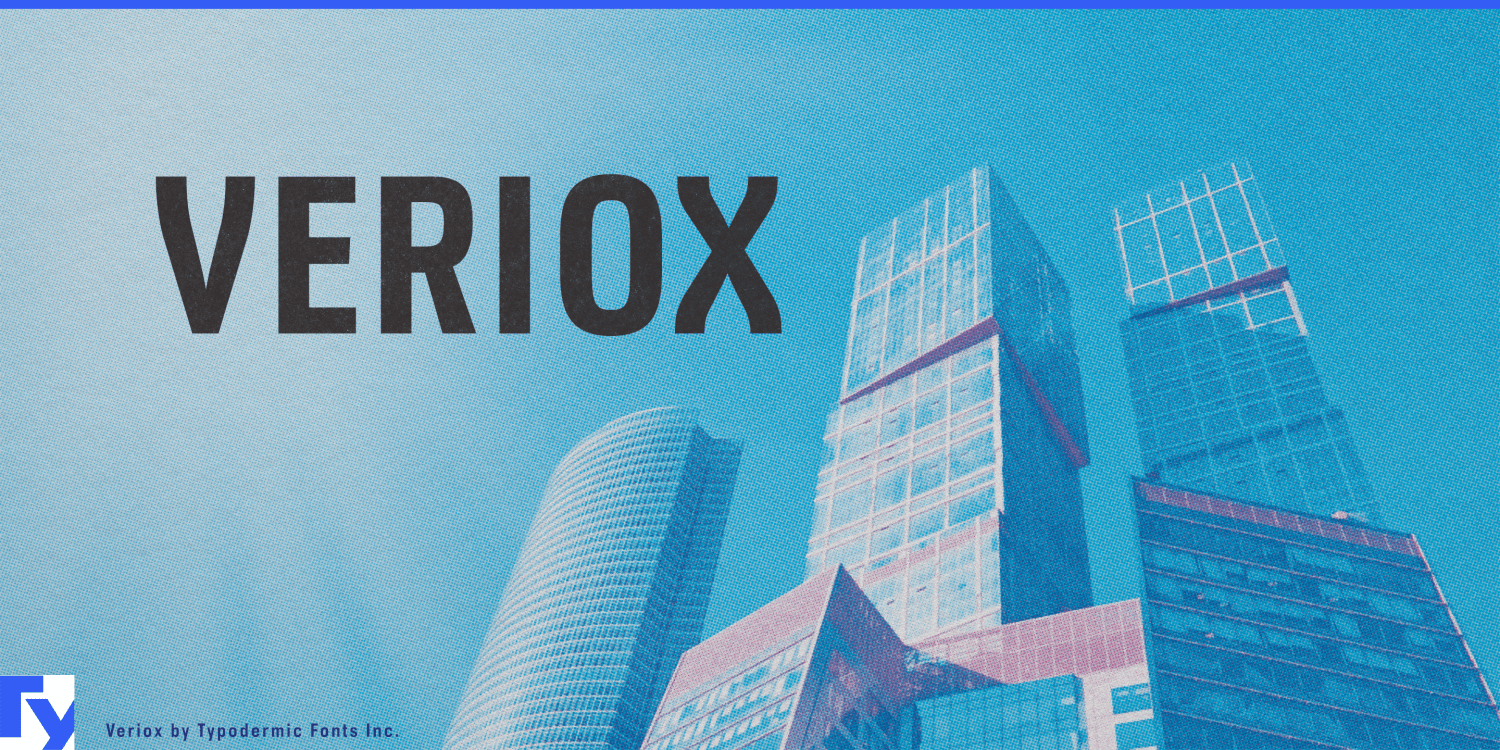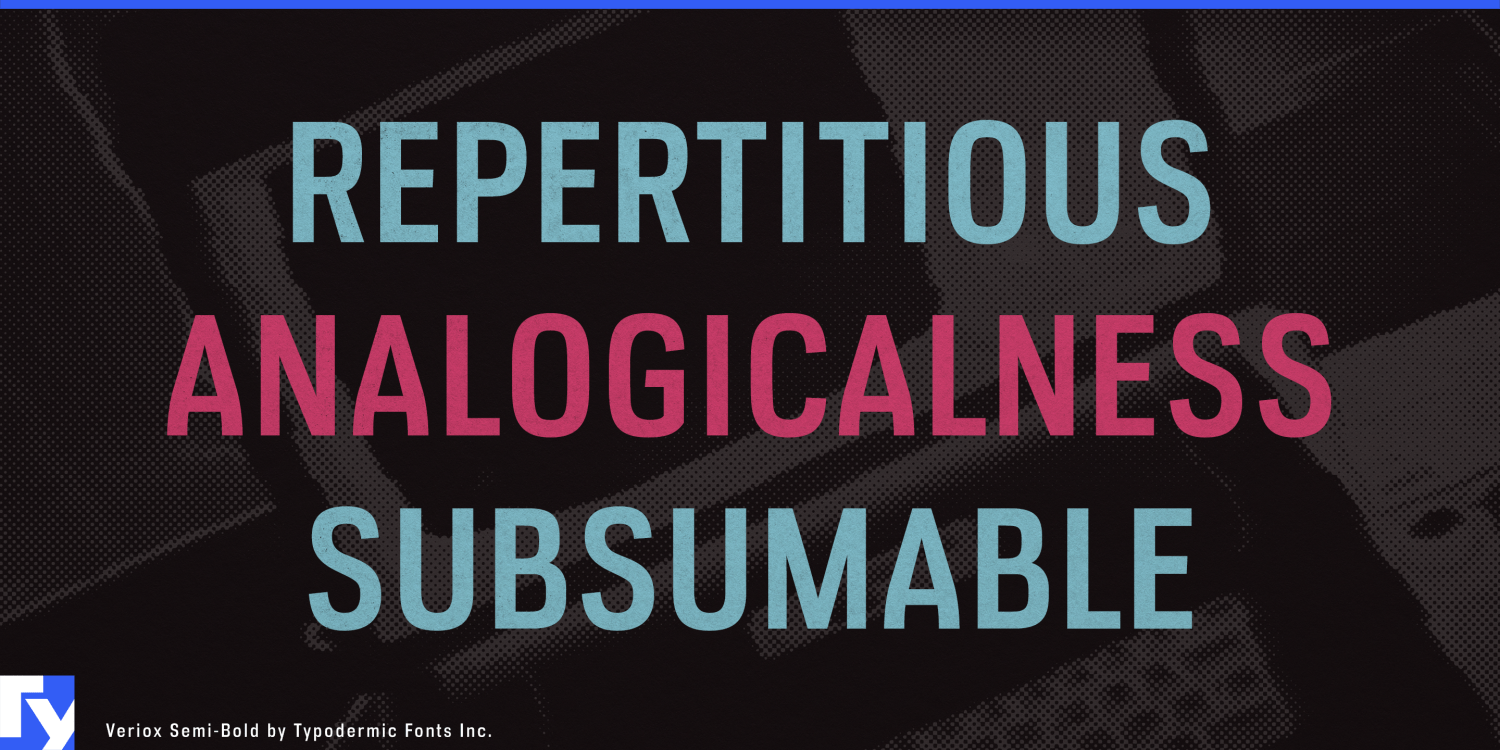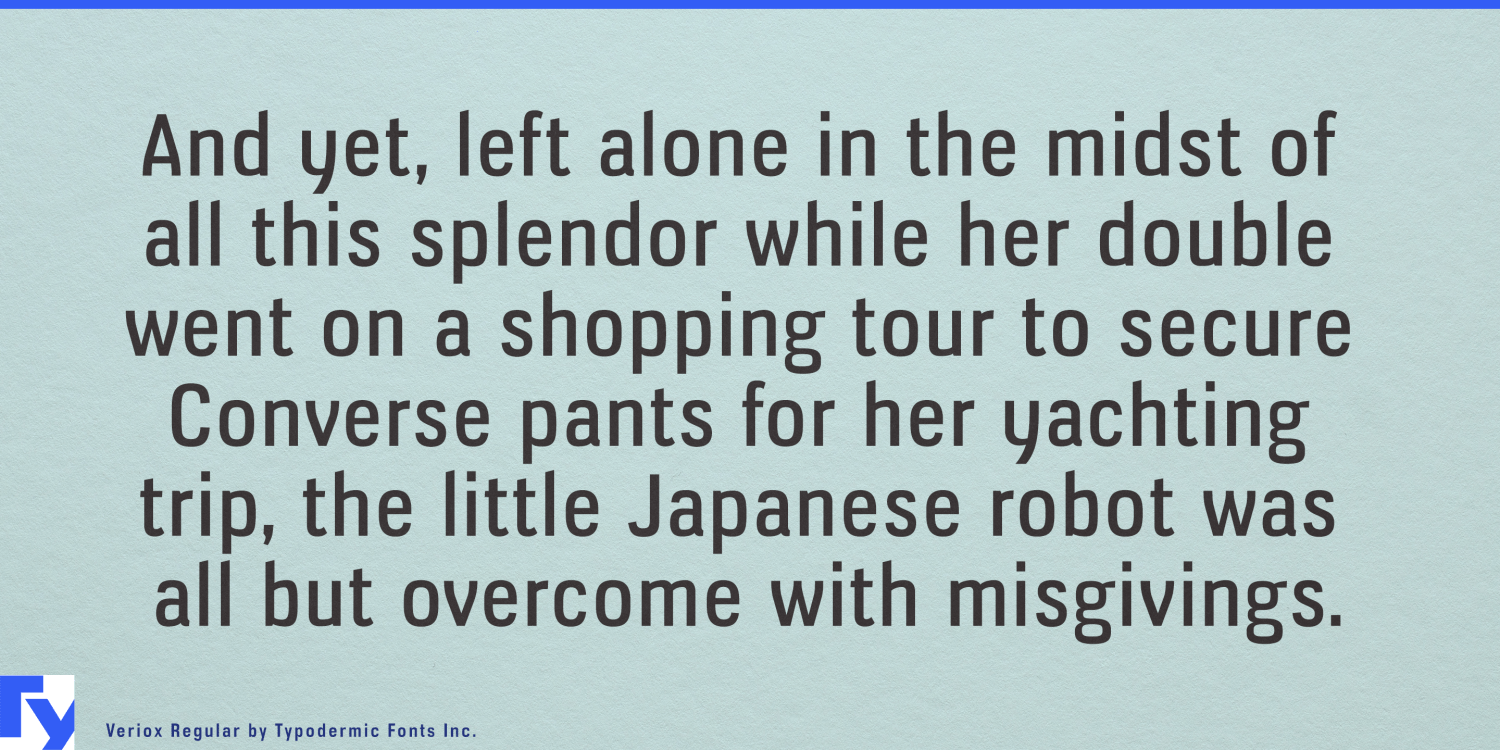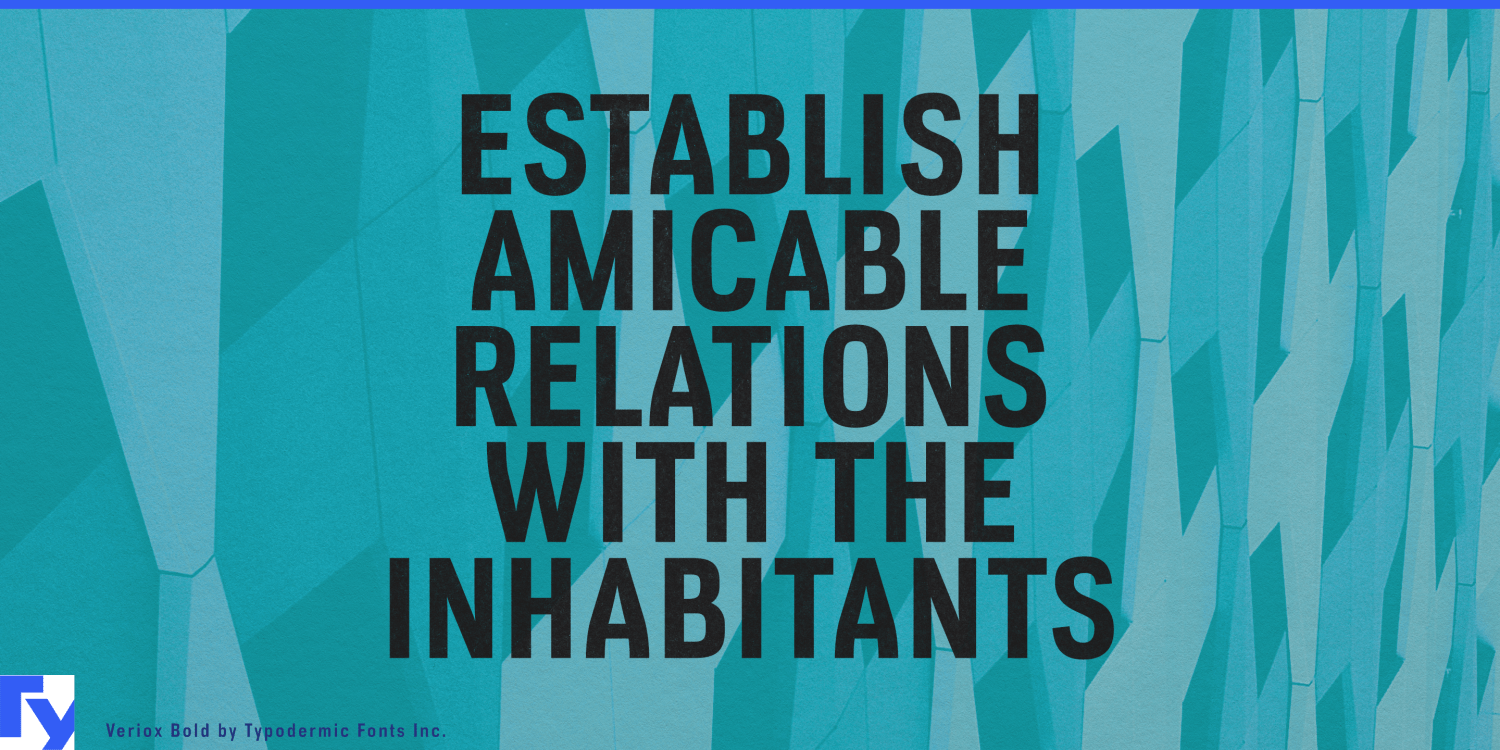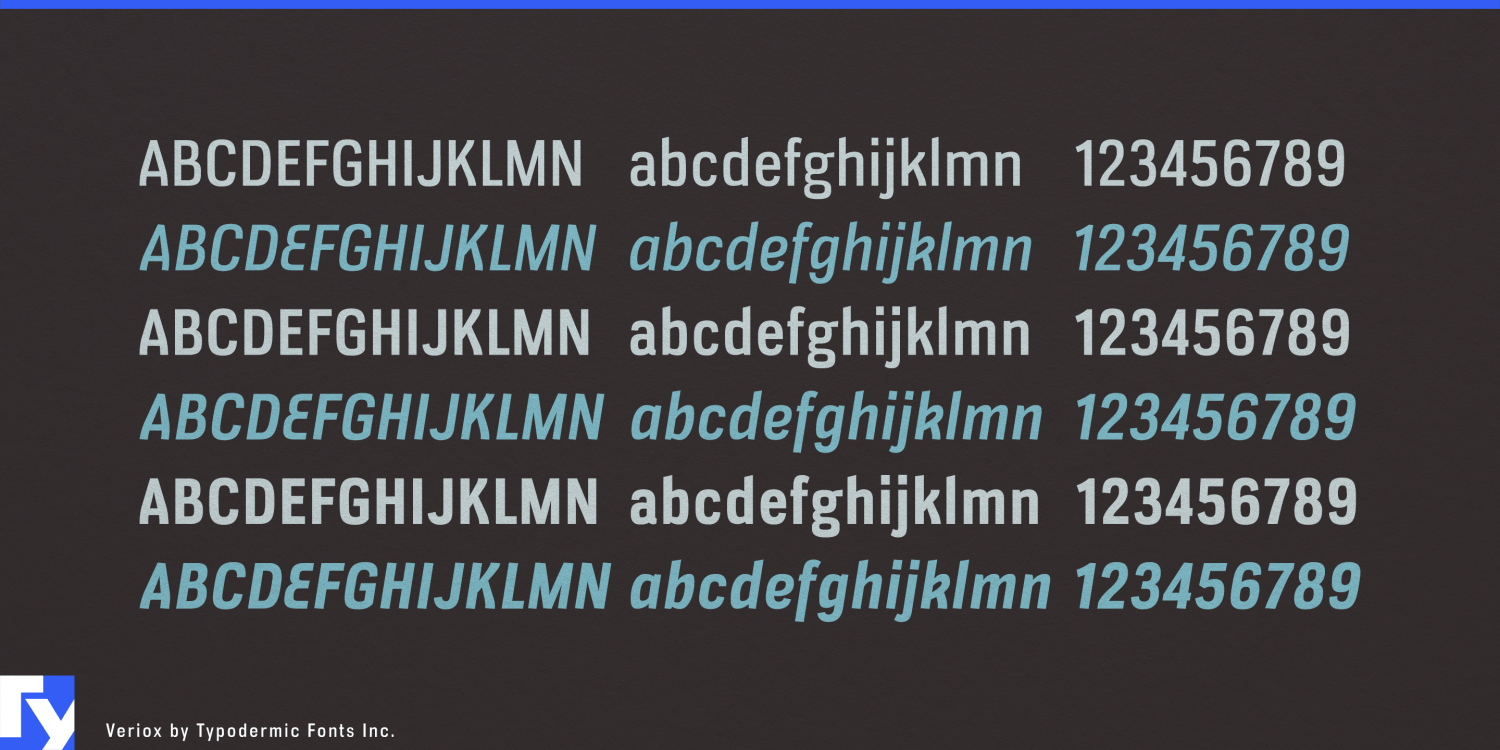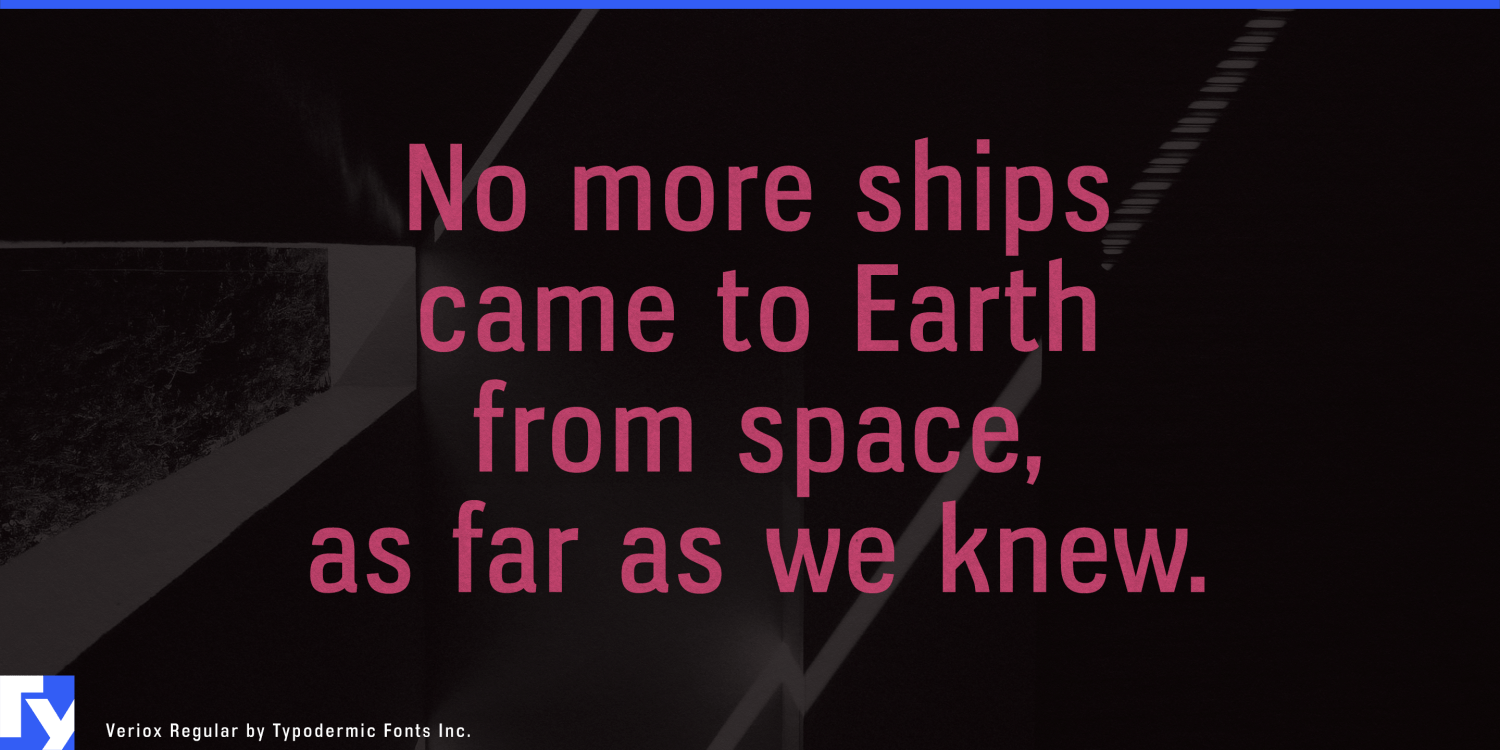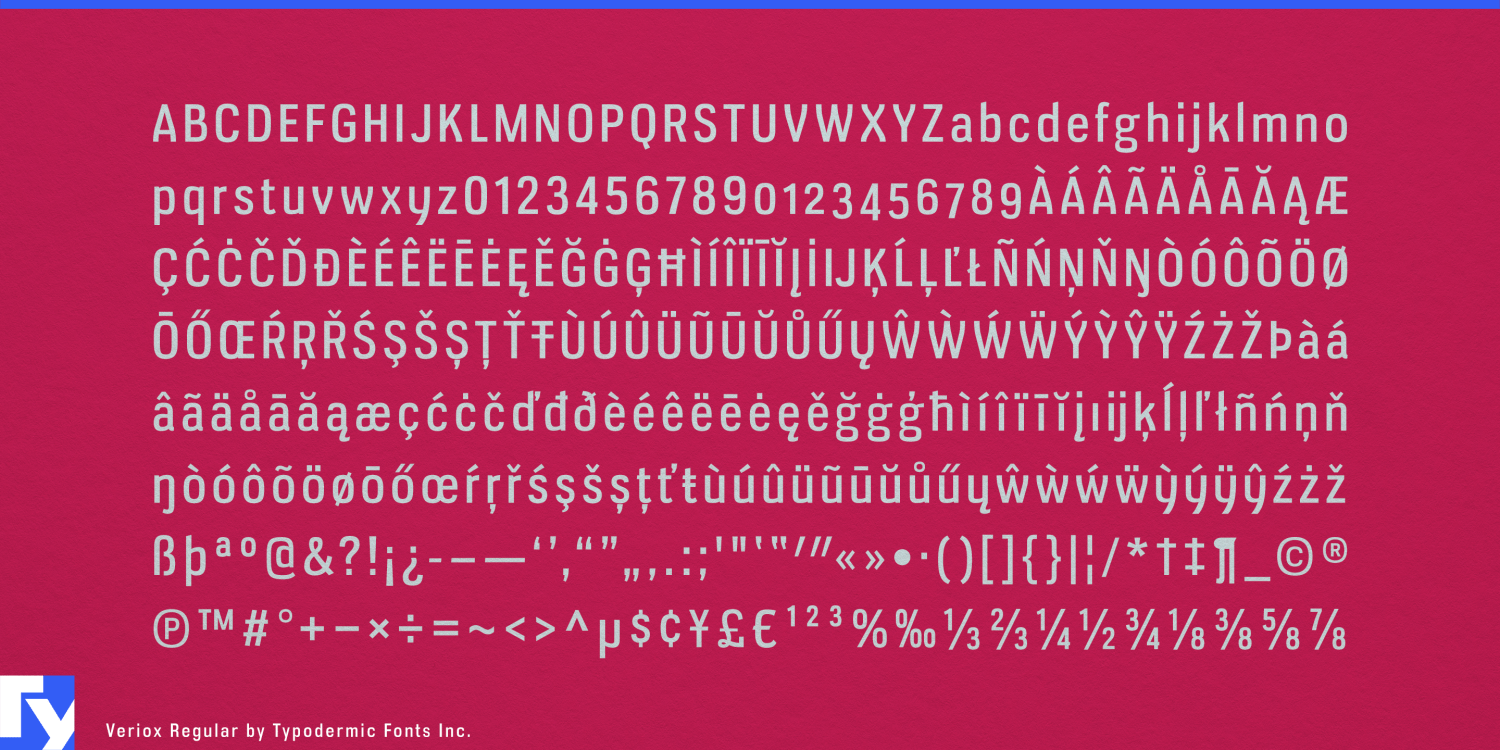
Veriox
Font Family by Typodermic
Step into the void with Veriox, a typeface forged in the crucible of space exploration. This is a visual representation of humanity’s relentless drive to push beyond our terrestrial limits, capturing the essence of scientific rigor and the raw challenges of venturing into the unknown.
Veriox’s square letterforms aren’t merely geometric—they’re engineered to withstand the harsh realities of space. Each character is a microcosm of durability, echoing the unyielding structures of spacecraft and space stations. The clean lines and precise angles speak of airlock seals and radiation shields, reminding us that in the unforgiving expanse of space, every detail matters. But Veriox doesn’t just survive in space—it thrives. Its three weights and corresponding italics offer the flexibility needed for any mission, from the gravity-defying lightness of lunar landscapes to the intense pressure of deep space exploration. Whether you’re designing control panel interfaces, mission patches, or interplanetary communication systems, Veriox adapts with the efficiency of a well-trained astronaut.
Veriox’s innovative aesthetic isn’t just for show. It’s a testament to the high-tech ingenuity required to conquer the final frontier. The typeface exudes the confidence of a mission control countdown and the grace of a spacecraft in orbit, all while maintaining pinpoint precision in its forms. This is typography that can withstand the g-forces of liftoff and the isolation of deep space travel. Despite its cosmic ambitions, Veriox remains grounded in global communication. Supporting a wide array of Latin-based European writing systems, it ensures your message is understood from Mission Control to international space stations. It’s not just crossing language barriers—it’s bridging the gaps between worlds.
Don’t let your designs be constrained by earthly limitations. Choose Veriox and launch your projects into a new frontier of typographic excellence. With Veriox, you’re not just setting type—you’re setting course for the stars, embracing the challenges and triumphs of space exploration with every letter. Get Veriox today and watch your designs achieve escape velocity.